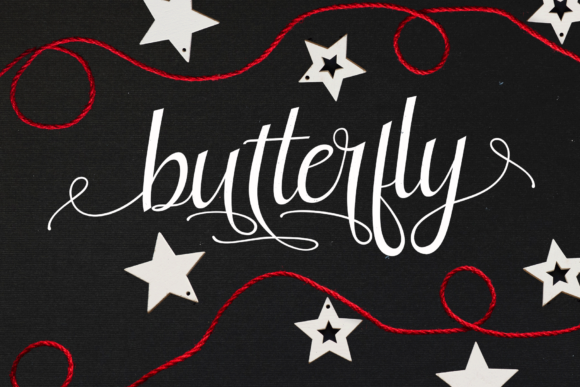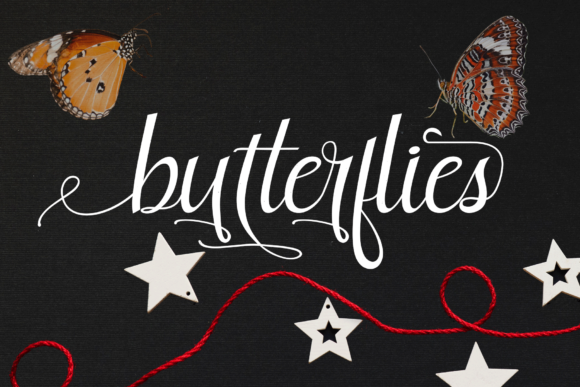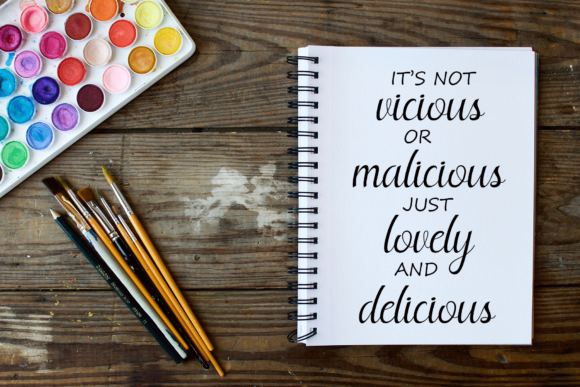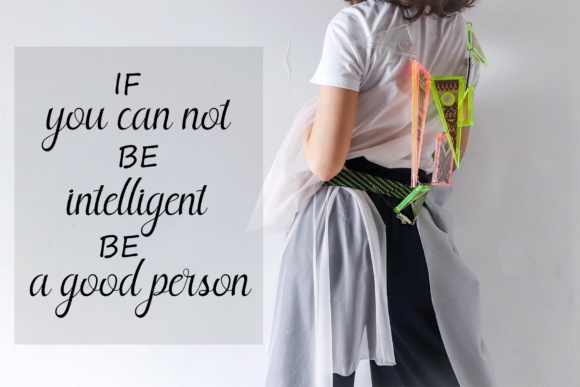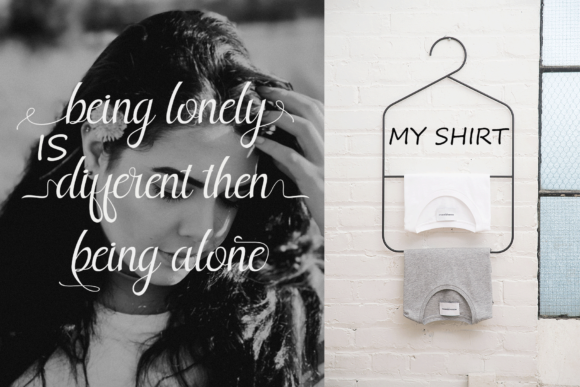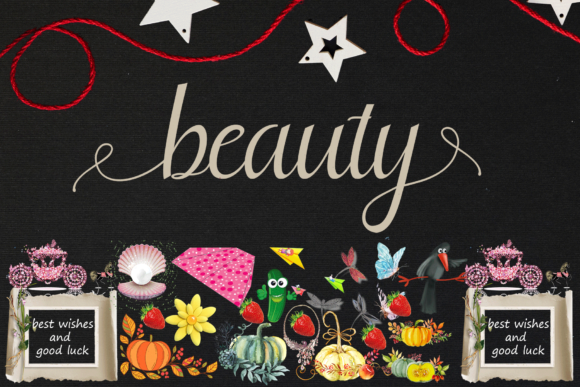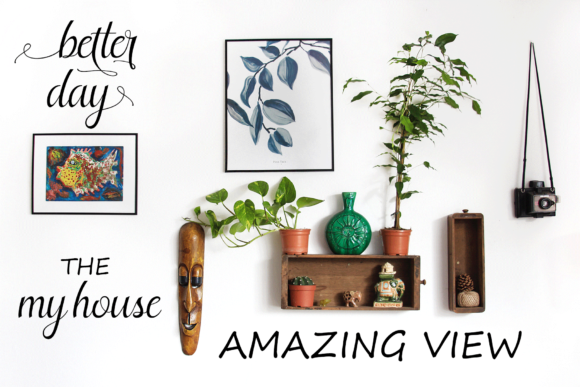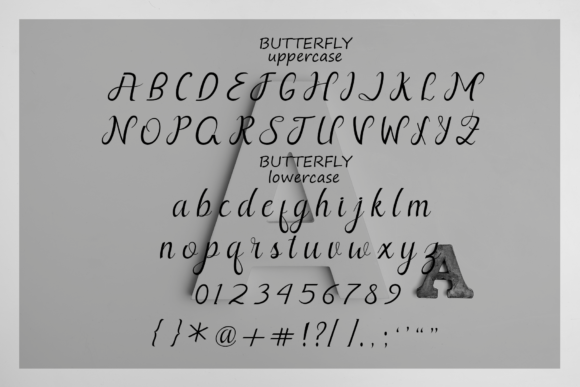
The Butterfly is a handwritten typeface with natural characteristics. It’s perfect for invitations, signatures, blogs, social media, business cards, product brands, and much more!